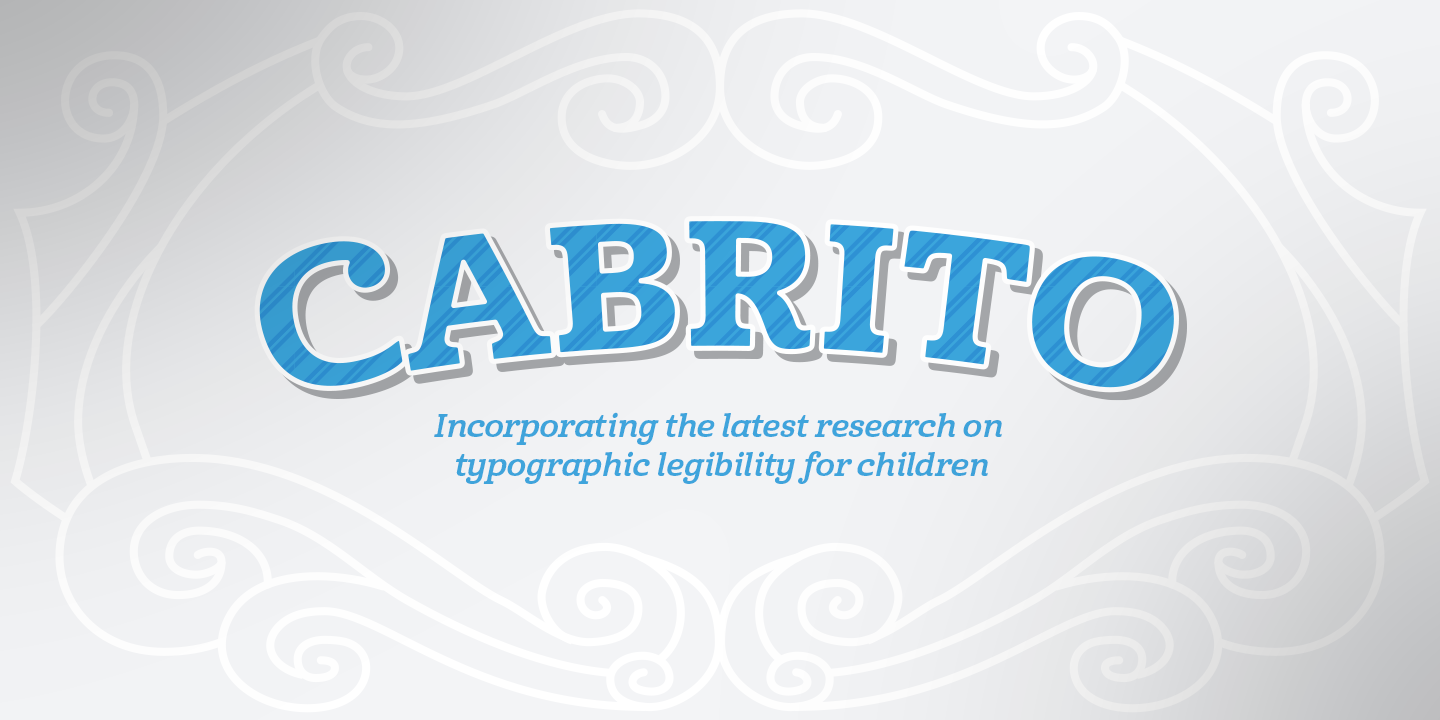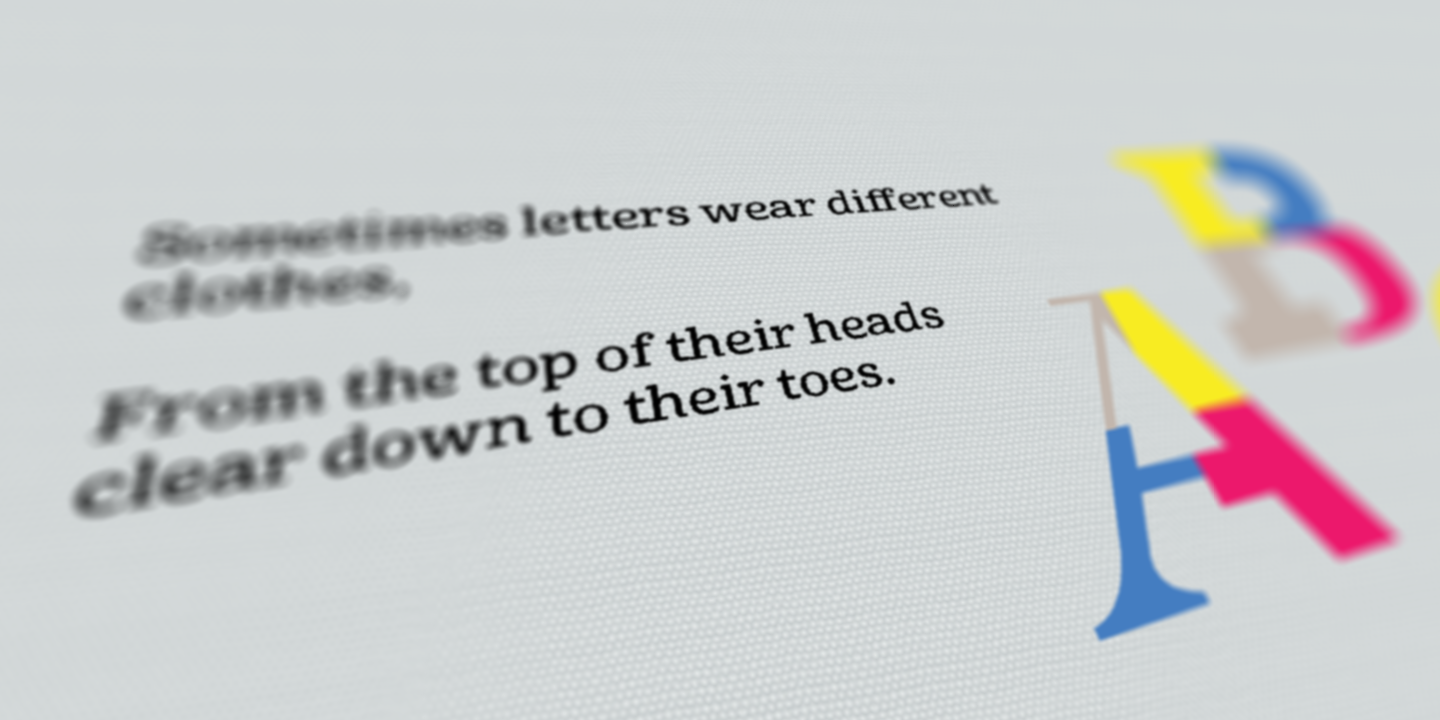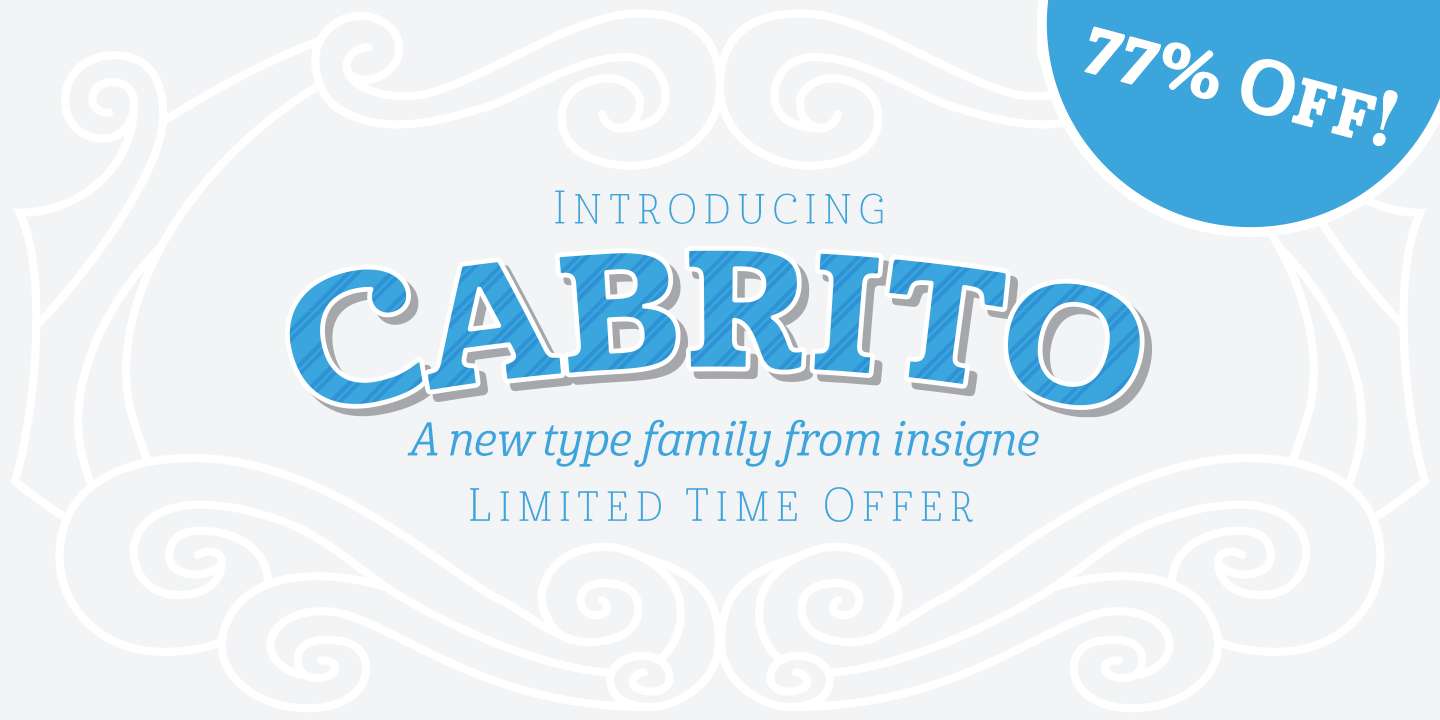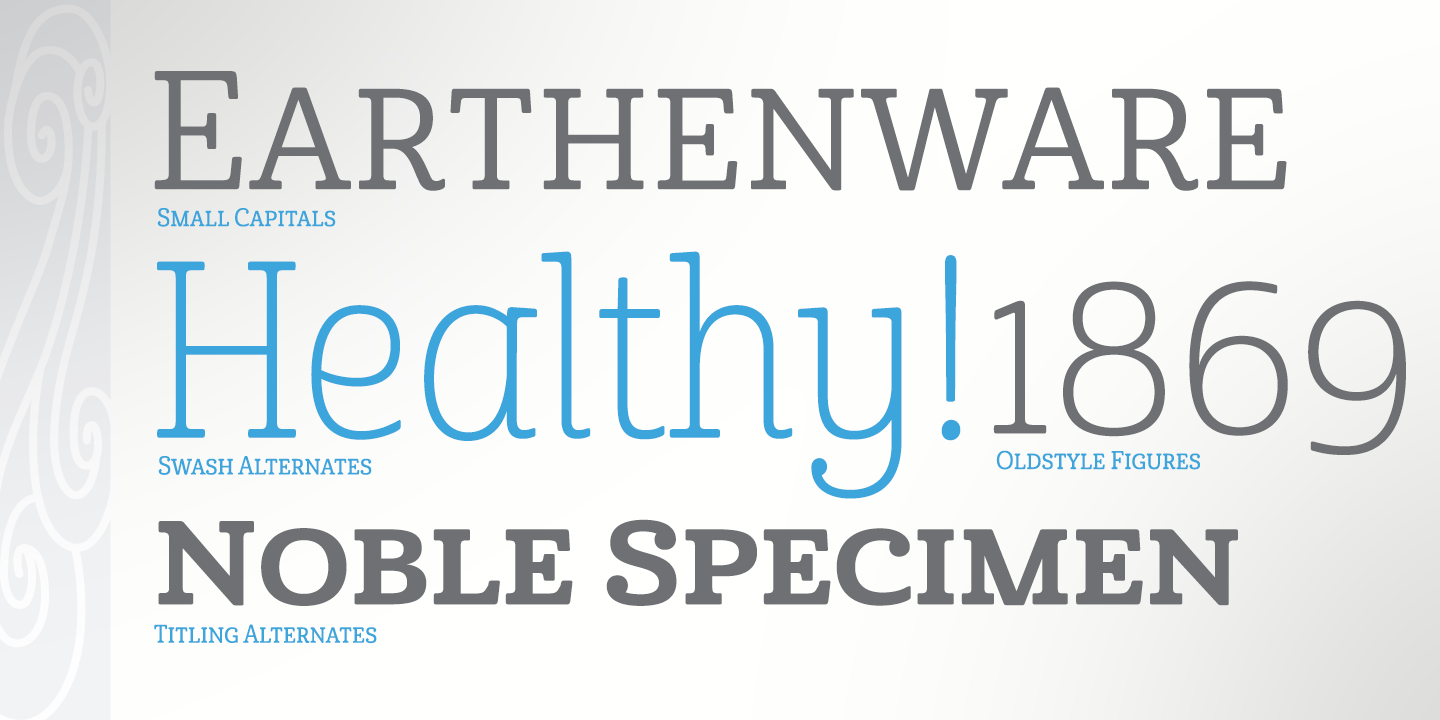
After my son was born, I found myself reading him a lot of books. A LOT of books.
Some were good, some were great, but I found myself wanting to develop something using my skills and interests to make something that only I could make. In short, I realized my son needed to be indoctrinated--I mean, introduced into the wonderfully wild world of fonts.
And, as an added bonus, this children’s book has a custom designed font. I’m always looking for an excuse to design a new font, and this book created the perfect alibi.
I now give you . . . Cabrito (“little goat” en Espanol). This new serif typeface incorporates the latest research on typographic legibility for children, features to make it--well, extra legible. A little background: studies show that Bookman Old Style is one of the most readable typefaces, and as a consequence or perhaps the reason why, it is used thoroughly for children’s books. This font became my initial inspiration for the typeface. Then, I found more legibility research saying that (brace yourselves) Comic Sans is also very legible for beginning readers, much due to the large x-height and softer, easily recognizable forms. In addition, forms that are closer to handwriting also seem to be more legible. Once I threw all that into my cauldron and stewed it a bit, the result was a pleasantly rounded typeface that includes not-so-strictly geometric, handwriting-inspired forms for the b, d, p, and q. Es guapo!
Cabrito's slender weights are simple and fun, with extras that turn any “bah humbug” into a smile. Add lighter touches to your project with the typeface’s included sparkles or rainbows (not included). Splash a little more color on the page with the firmer look of the thicker weights. Cabrito's upright variations across all weights are matched by optically altered italics, too, giving you even more variety with the font family.
This modern typeface’s bundle of alternates can be accessed in any OpenType-enabled software. The fashionable options involve a significant team of alternates, swashes, and meticulously refined aspects with ball terminals and alternate titling caps to decorate the font. Also bundled are swash alternates, old style figures, and small caps. Peruse the PDF brochure to check out these options in motion. OpenType-enabled applications like the Adobe suite or Quark allows comprehensive control of ligatures and alternates. This font family also provides the glyphs to aid a variety of languages.
Cabrito is a welcoming, everyday font family by Jeremy Dooley. Use it to convey warmth and friendliness on anything from candy and food packages to children’s toys, company IDs or run-of-the-mill promotional material. Cabrito's unique appearance and high legibility make it equally at home in print as it is on a screen.